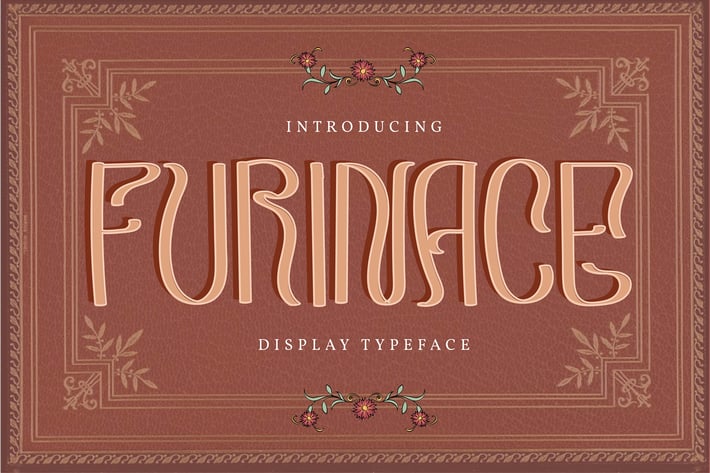
Furinace | Display Typeface
Furinace | Display Typeface with a calligraphy style, So beautiful on invitation like greeting cards, branding materials, business cards, quotes, posters, and more!